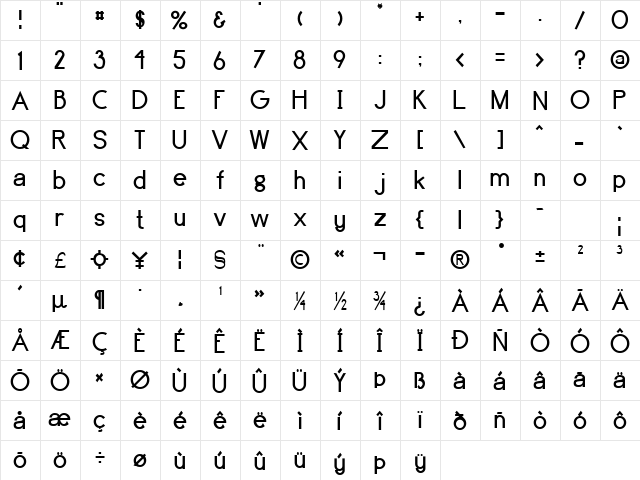
Brassfield Regular
Design Context for Brassfield Typeface
Brassfield takes a measured approach to typography — its balanced proportions and neutral character make it a reliable workhorse for both digital and print work.